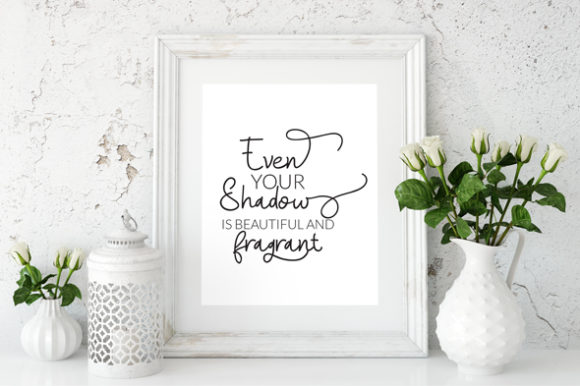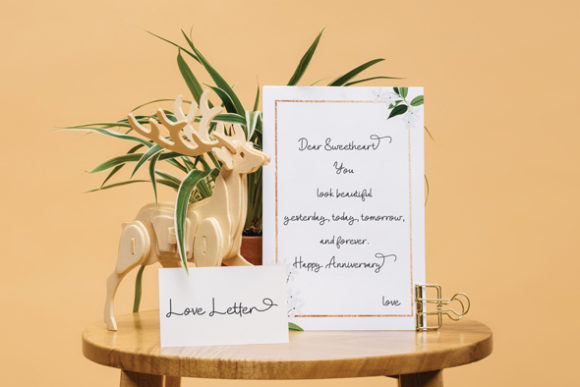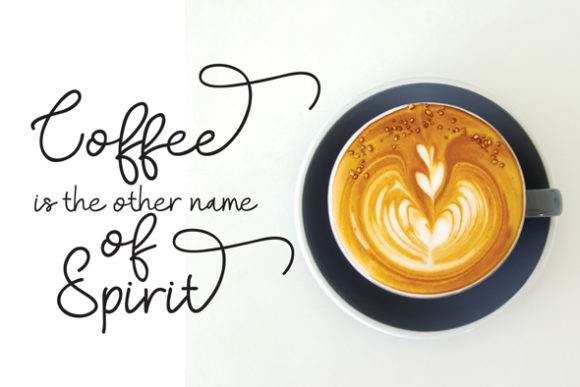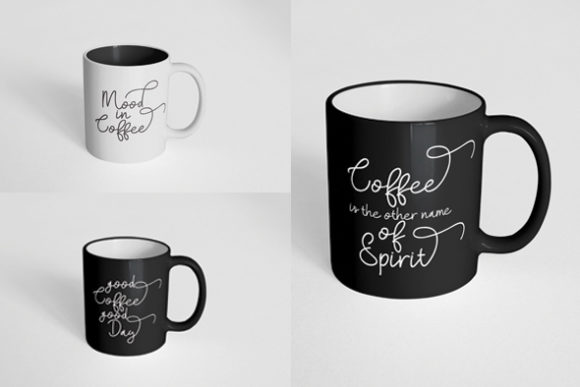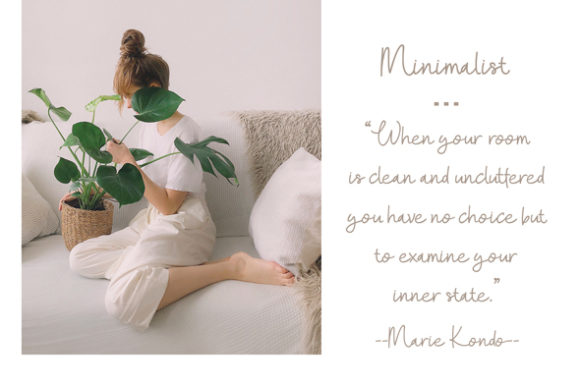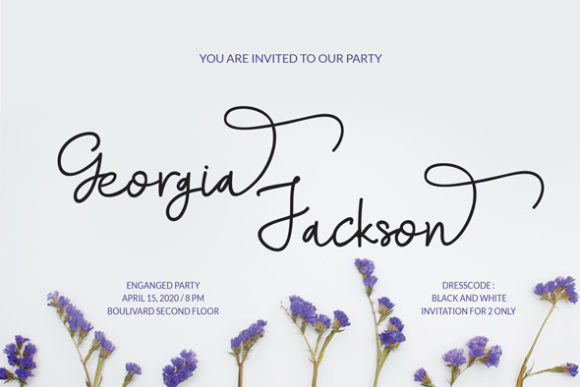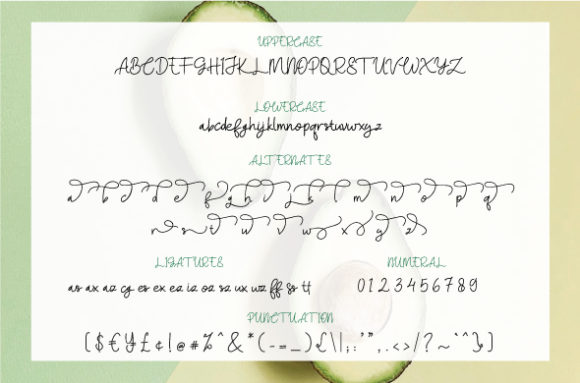
Avocados Font
Avocados is a casual, fun handwritten font. Modern and playful, this font is the perfect fit for all of your logos, branding, social media, and crafty DIY projects.